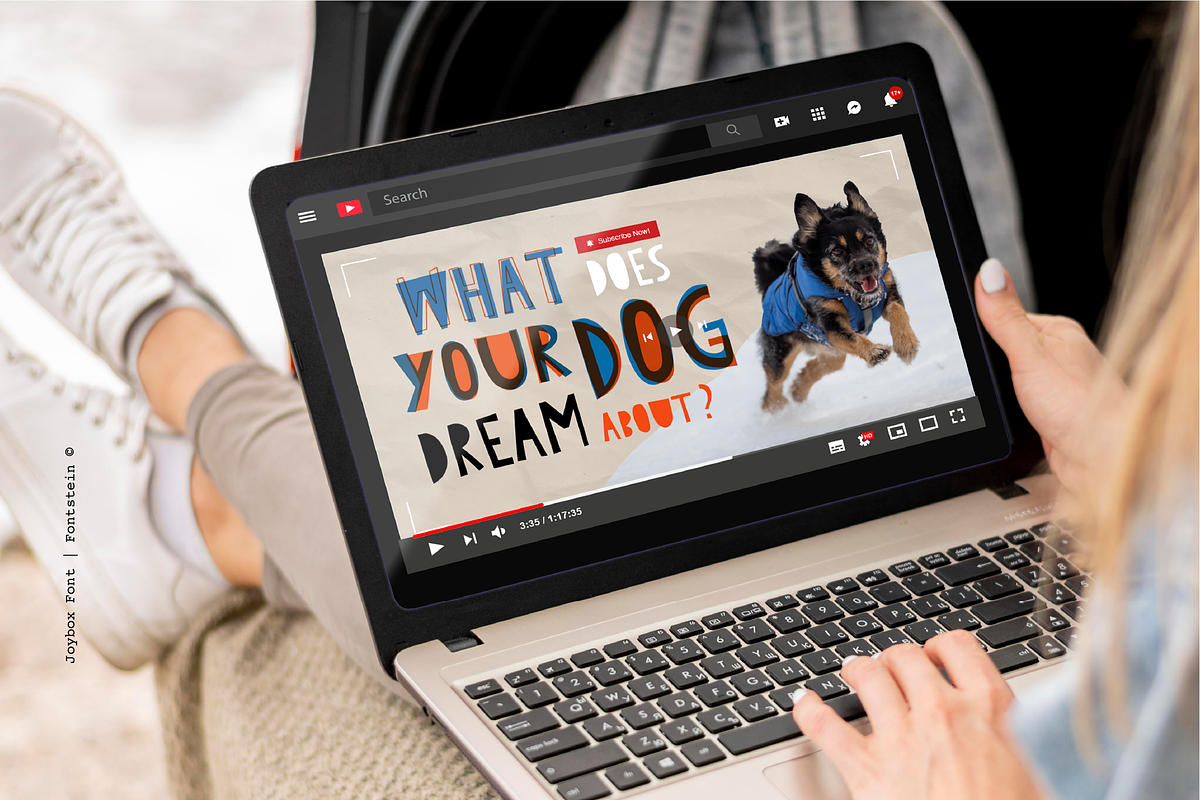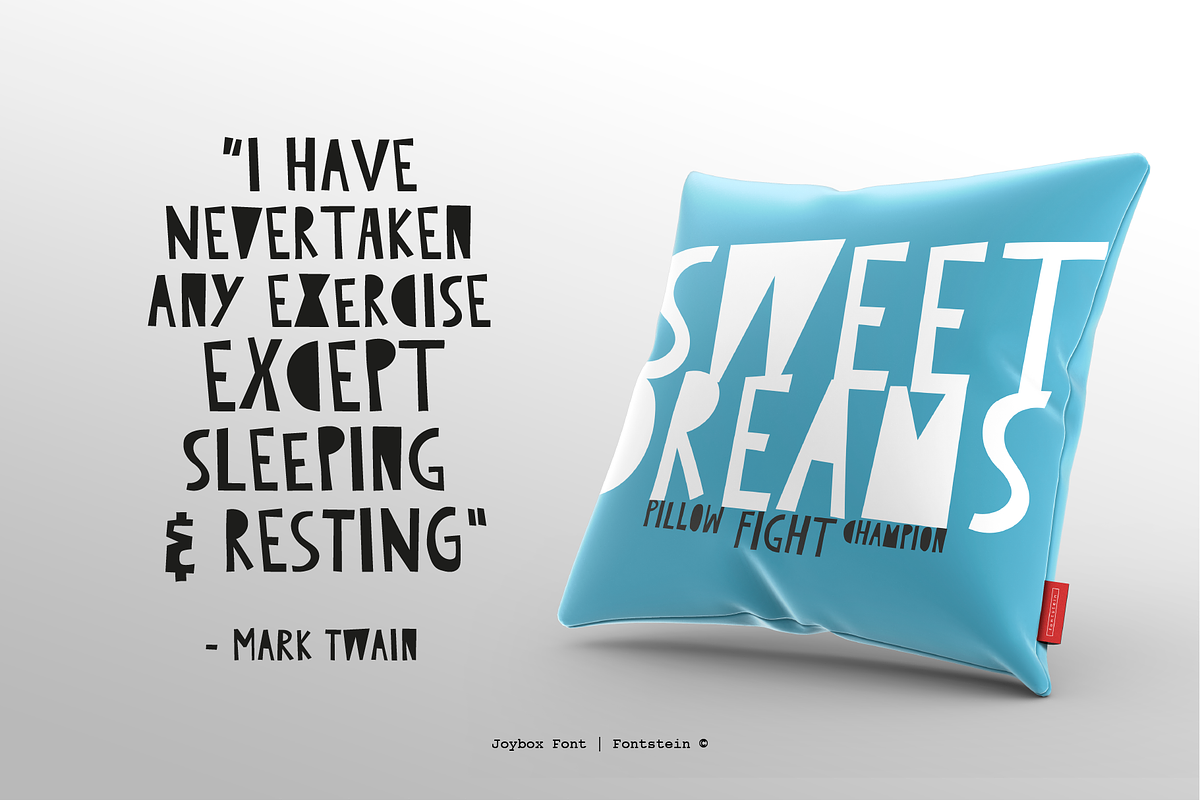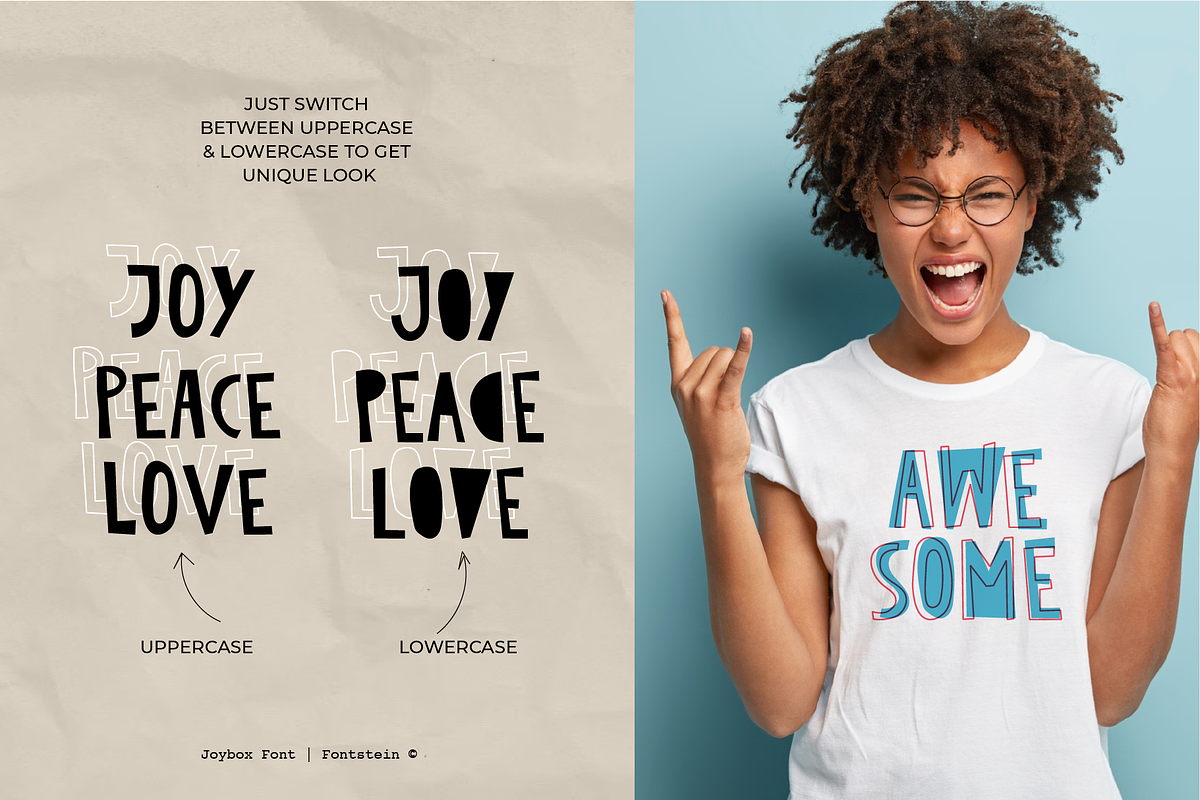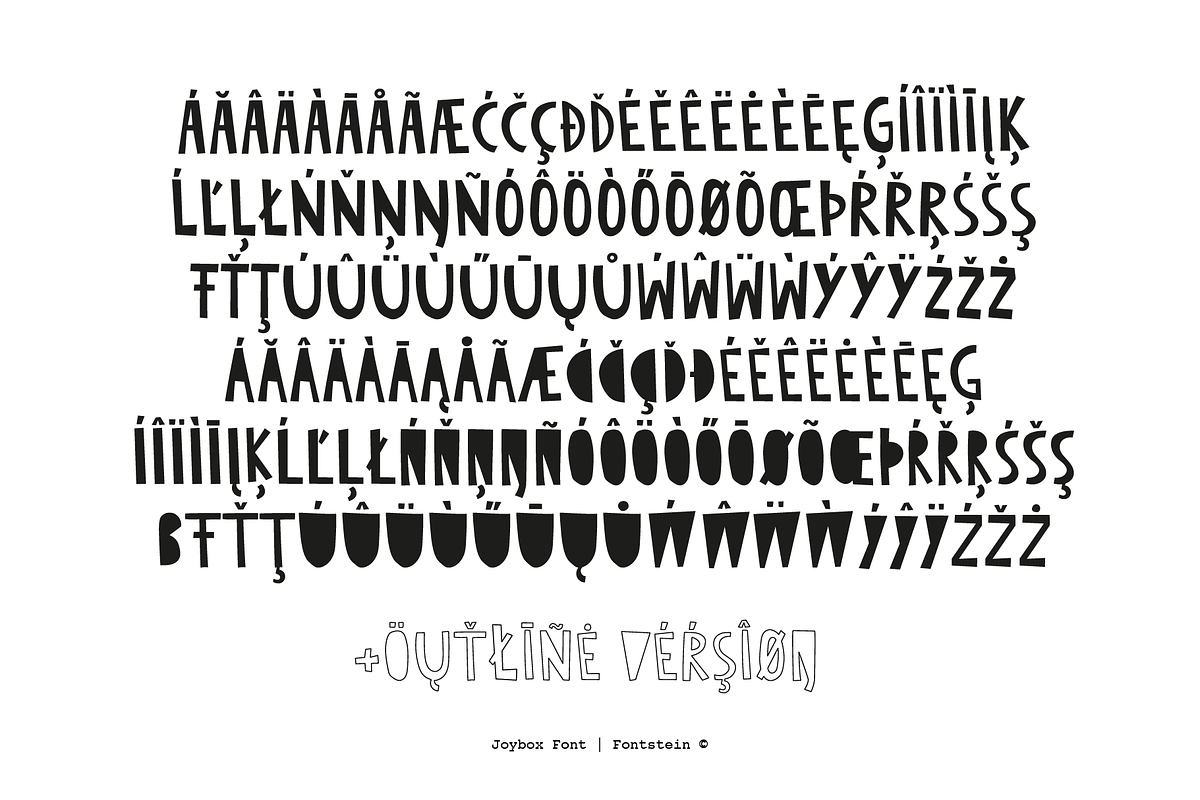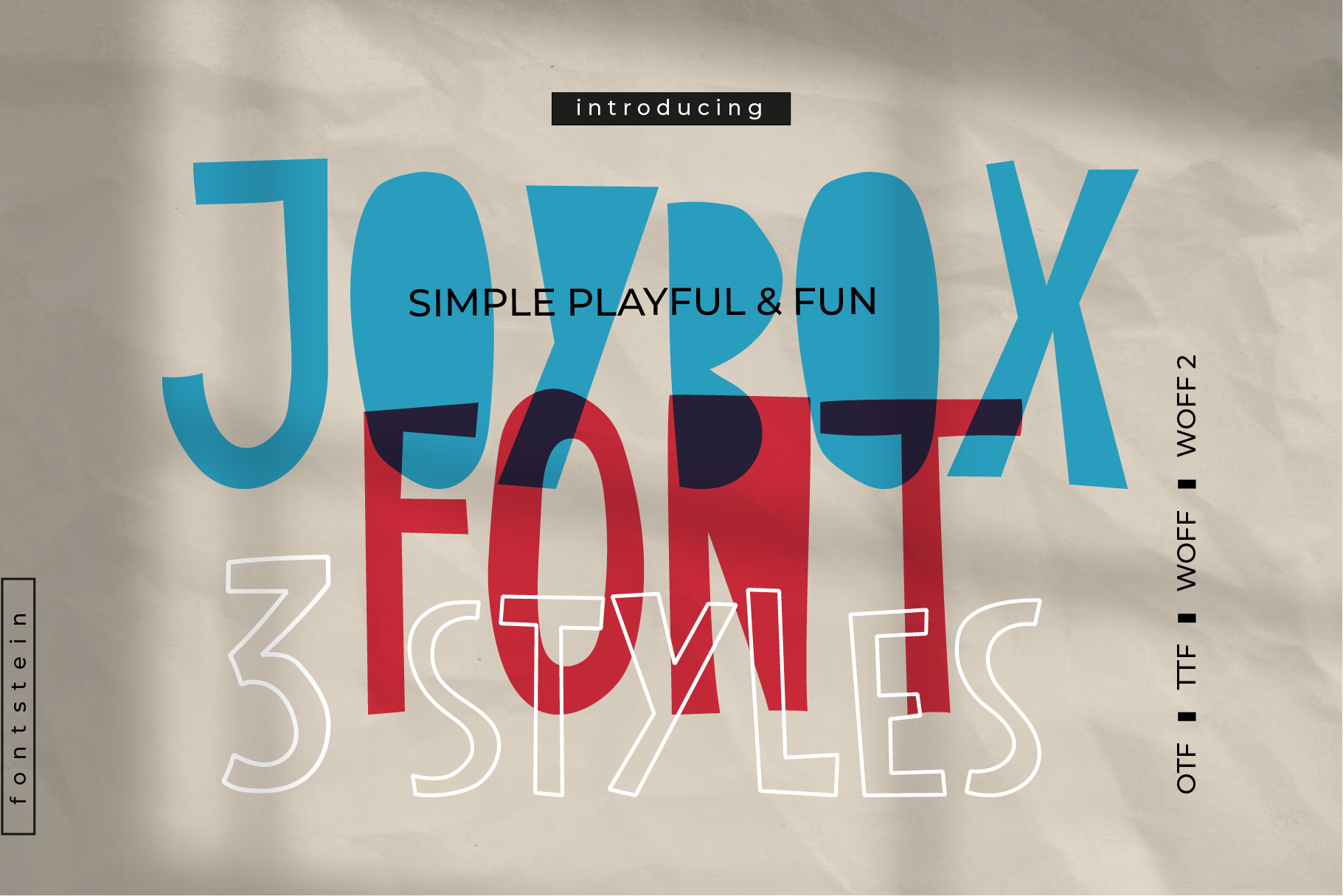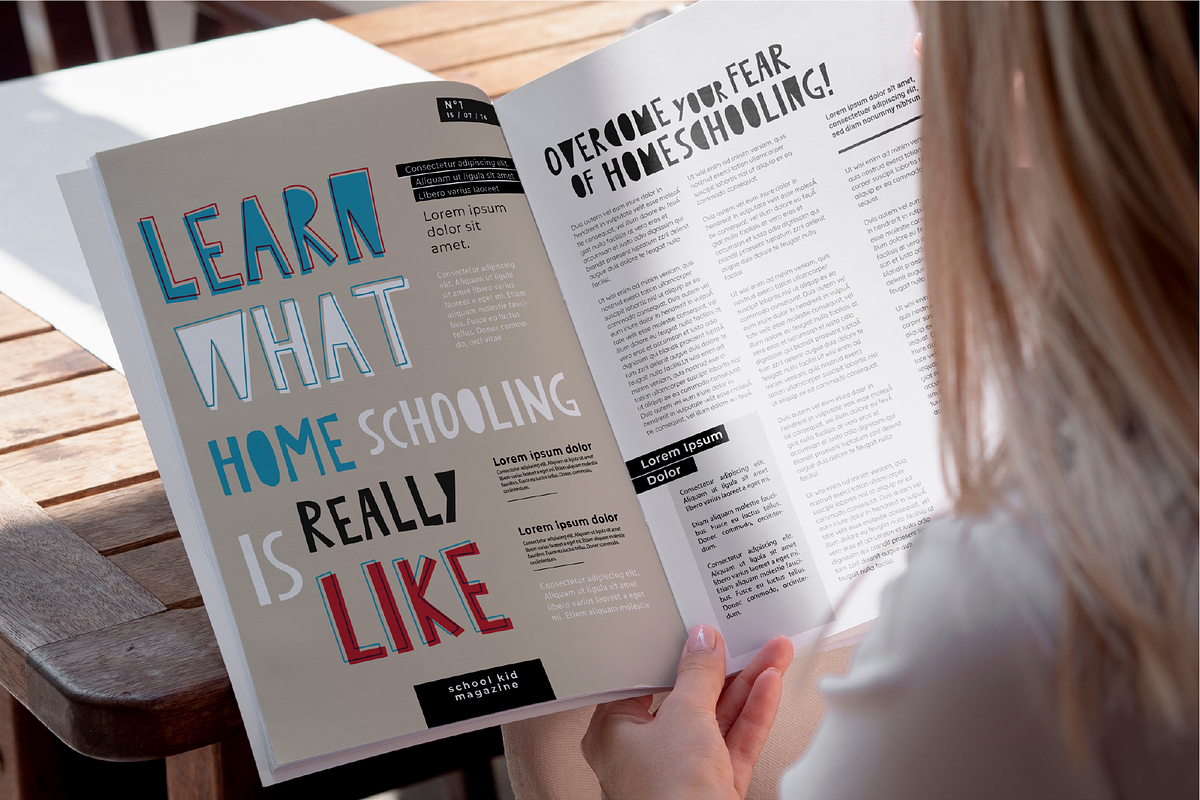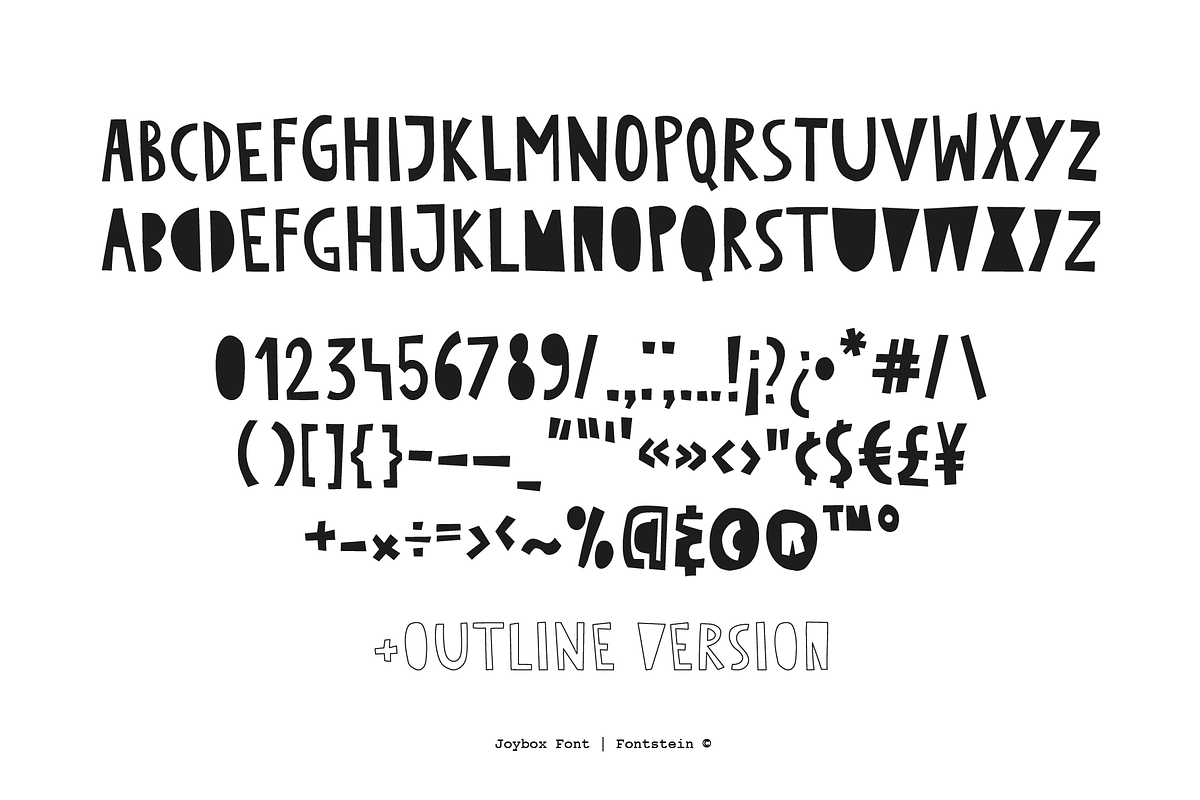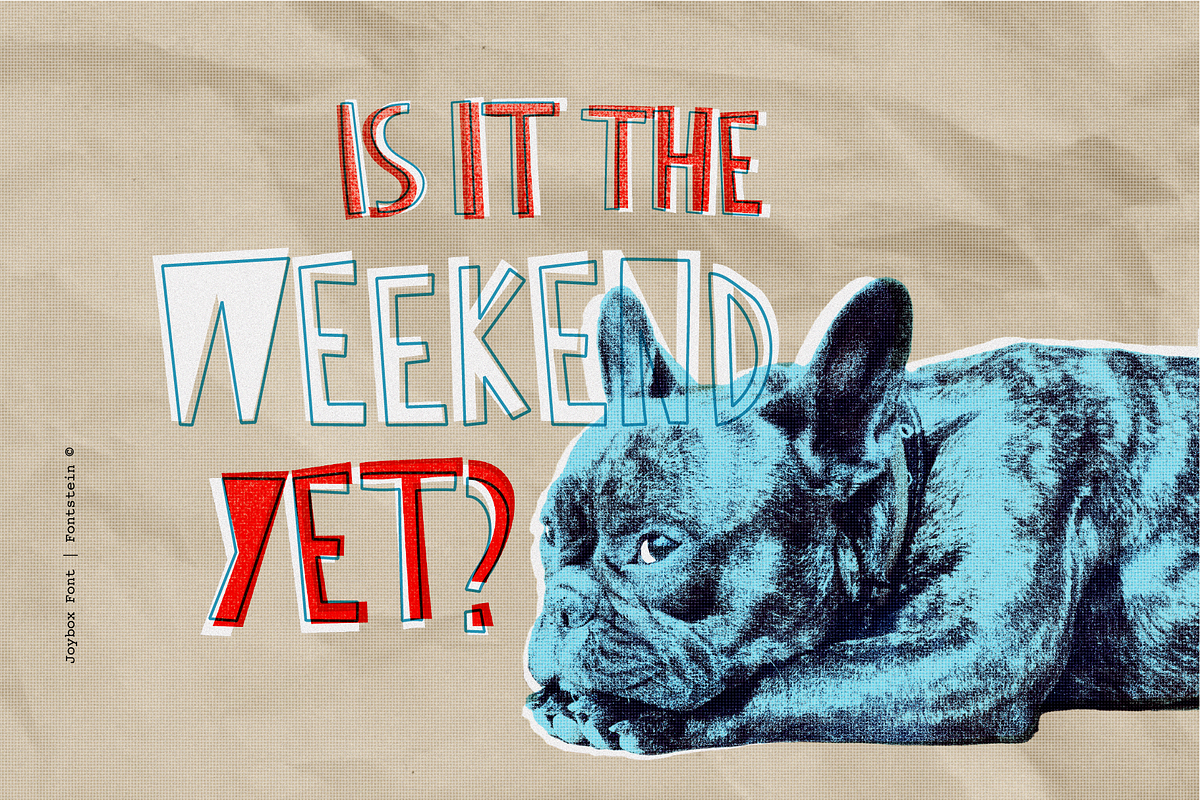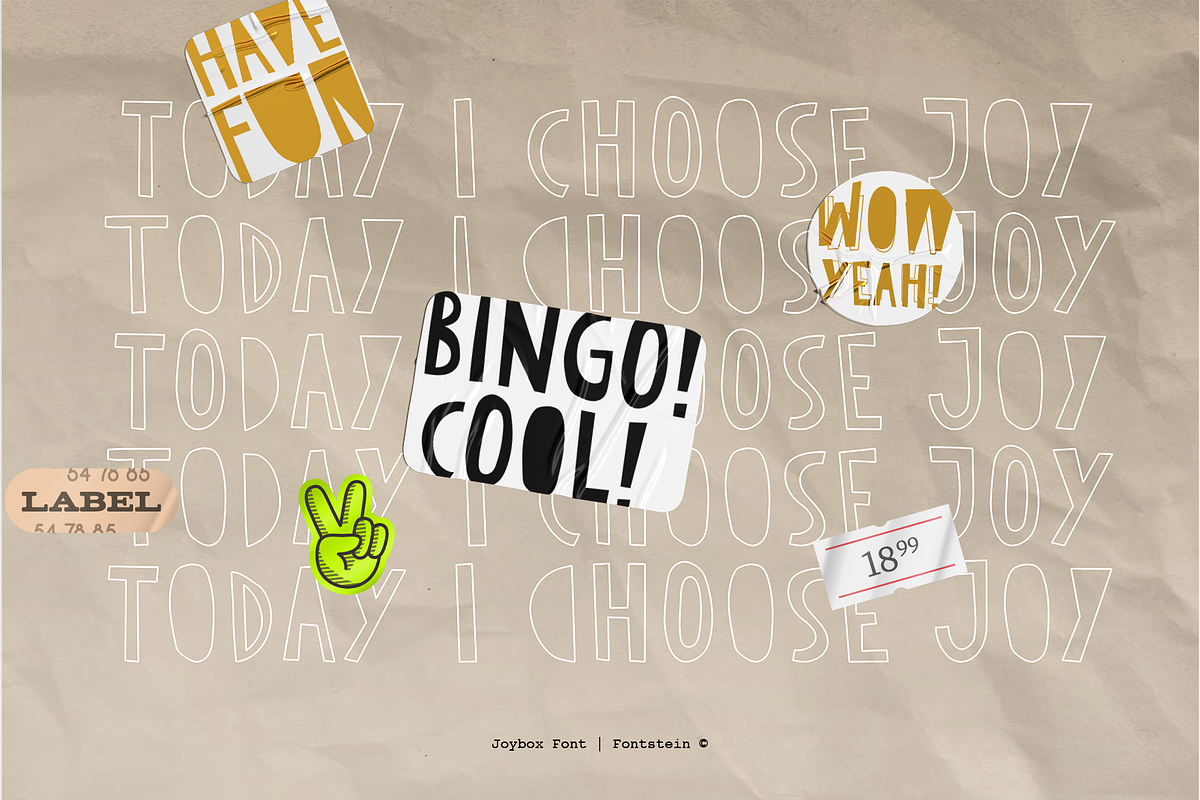
JOYBOX | Cutout font + Outline
JoyBox is a display font inspired by creating collages and cutting out paper forms. The font has only capital letters. In the uppercase, the letters are cut out, in the lower case - filled letters. Just switch between uppercase and lowercase to create the desired look.
It's the best for contemporary branding, quotes, social media, invitations, greeting cards, headlines, and all kinds of fun designs.
Joybox has massive language support - it includes basic latin characters, western european, central european, southeastern european. If you want to test your language, please - type something in the test box below preview :)